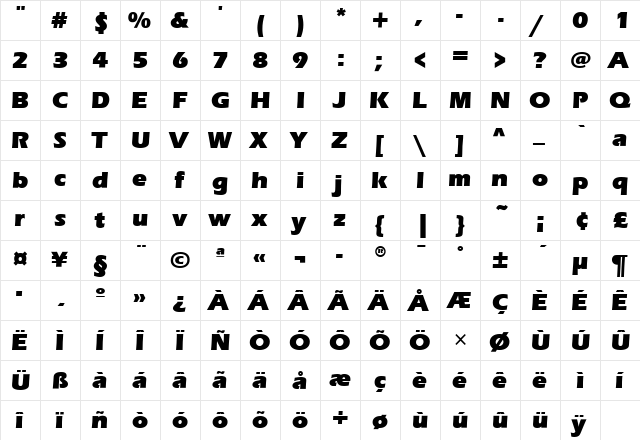
ErasBldITC Ultra
Design Context for ErasBldITC Typeface
ErasBldITC is a composed and adaptable typeface that performs quietly and consistently across a wide range of design contexts.